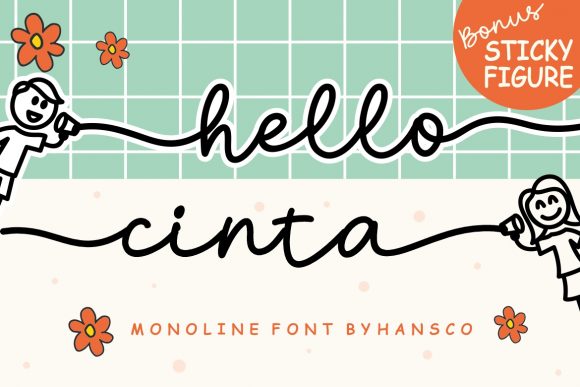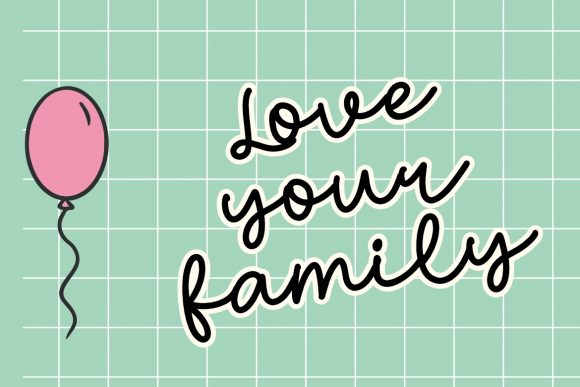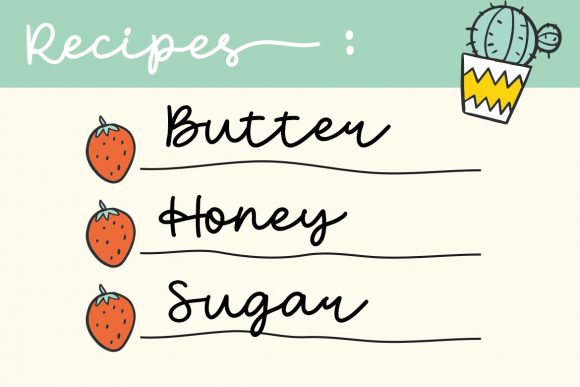
About Hello Cinta Font
Hello Cinta feels dainty and flowing. It looks stunning on wedding invitations, thank you cards, quotes, greeting cards, logos, business cards and every other design which needs a handwritten touch. This font is PUA encoded which means you can access all of the glyphs and swashes with ease!